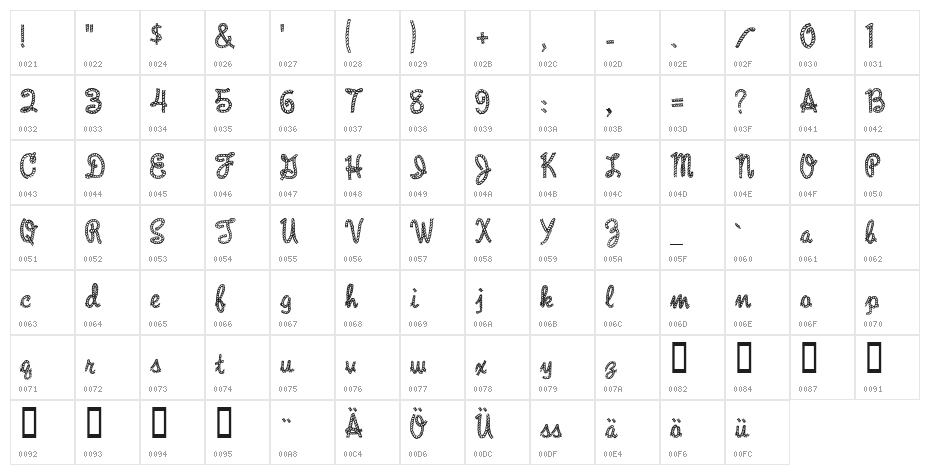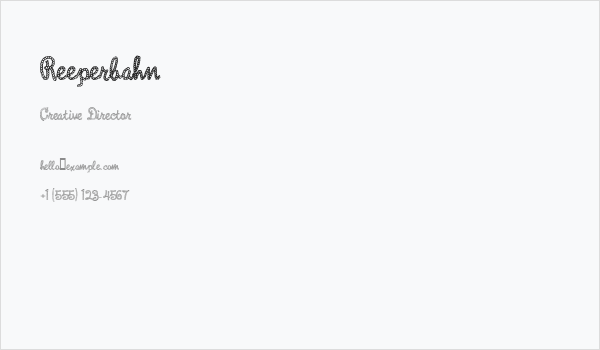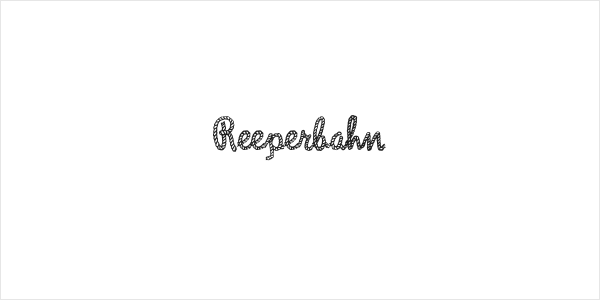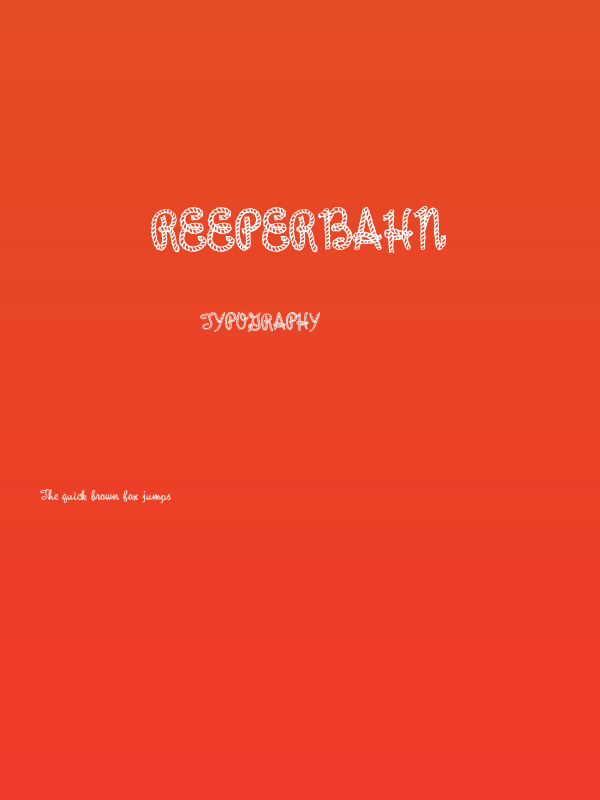
Reeperbahn Font
Reeperbahn Description
This font features a unique rope-like design, where each character is crafted to resemble intertwined strands of rope. The letters are bold and decorative, with a playful and nautical theme. The uppercase and lowercase letters maintain a consistent style, with the rope texture adding depth and dimension. Numbers and special characters are also designed with the same rope motif, ensuring a cohesive look across all text elements. This font is ideal for projects that require a maritime or adventurous aesthetic, offering a distinctive and eye-catching appearance.
| Proposed Projects | Ideal for maritime-themed posters, adventure branding, children's books, and decorative signage. |